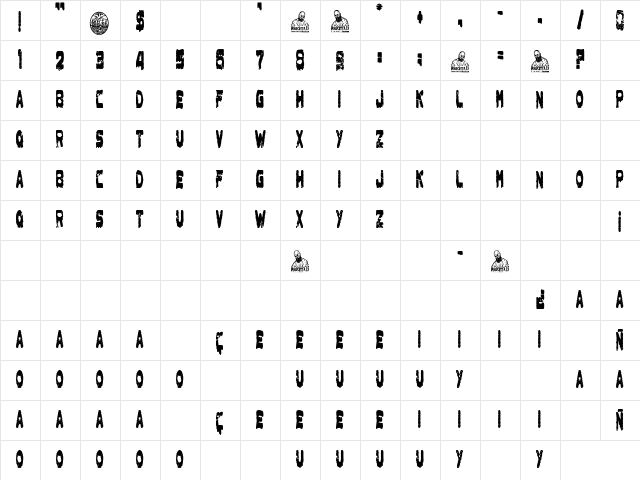
Complete Death in Buenos Aires Regular glyph index. Displaying only characters natively supported by Death in Buenos Aires Regular font.
Death in Buenos Aires carries an unsettling edge - its distorted letterforms are built to unsettle, perfectly suited to horror, Halloween, and dark creative work.
Font Pairing: Pair with a clean neutral sans-serif for body copy to let Death in Buenos Aires's character lead without overwhelming the composition.
Pro Tip: Use Death in Buenos Aires at larger display sizes for maximum impact. Consider generous tracking to let the disturbing character of each letterform breathe.